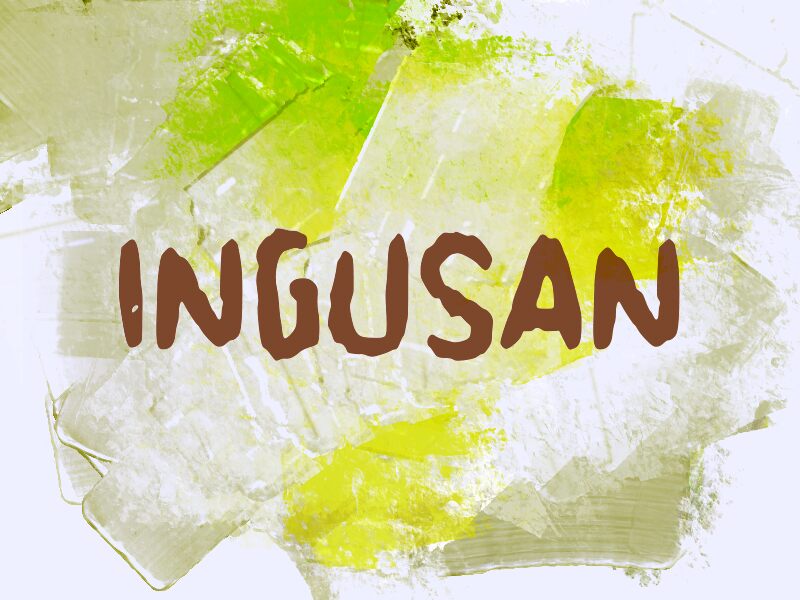
INGUSAN
Ingusan font from wep is a hand-drawn brush font with irregular shapes and a casual appearance. Thanks to its organic flow, each character has a natural handwritten look that keeps it informal and relaxed. As a result, this typeface delivers an unfussy and friendly mood best suited for fun-loving audience.